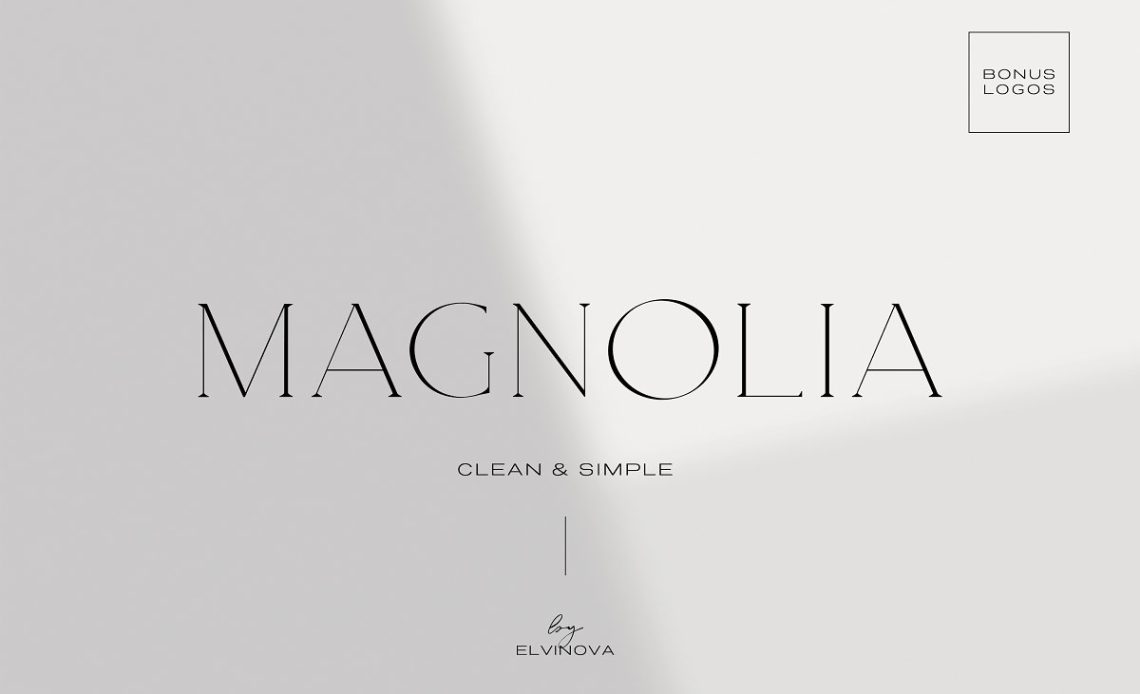
Are you looking for a font that exudes elegance and class? Look no further than Magnolia - a modern serif font family that will elevate your design projects. Created by Elvina Gafarova, Magnolia is a clean and delicate typeface with a classic touch. It features three different weights - regular, medium, and bold - giving you the flexibility to use it in a variety of design settings.
One of the standout features of Magnolia is its versatility. This font family can be used for a wide range of design projects, from wedding invitations and business cards to book covers and social media graphics. It's the perfect choice for anyone who wants to add a touch of sophistication to their work.
But that's not all - Magnolia is also multilingual, making it an excellent choice for designers who work with clients from around the world. Whether you're creating a website, a product package, or any other design project, Magnolia will help you communicate your message with clarity and style.